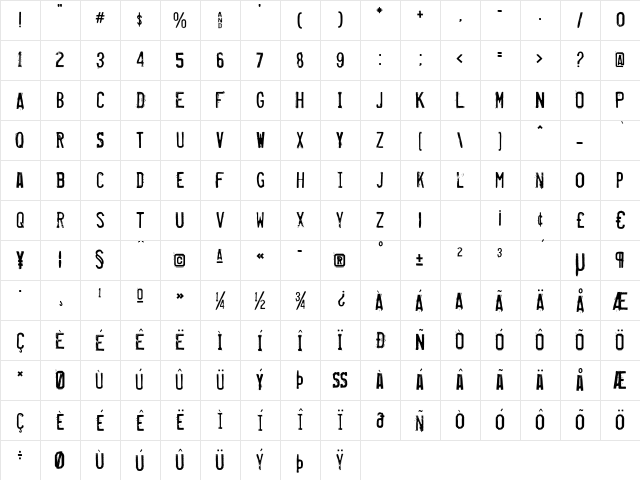
Misproject Regular Free Font
Misproject Regular
Design Context for Misproject
Misproject is a composed and adaptable typeface that performs quietly and consistently across a wide range of design contexts.